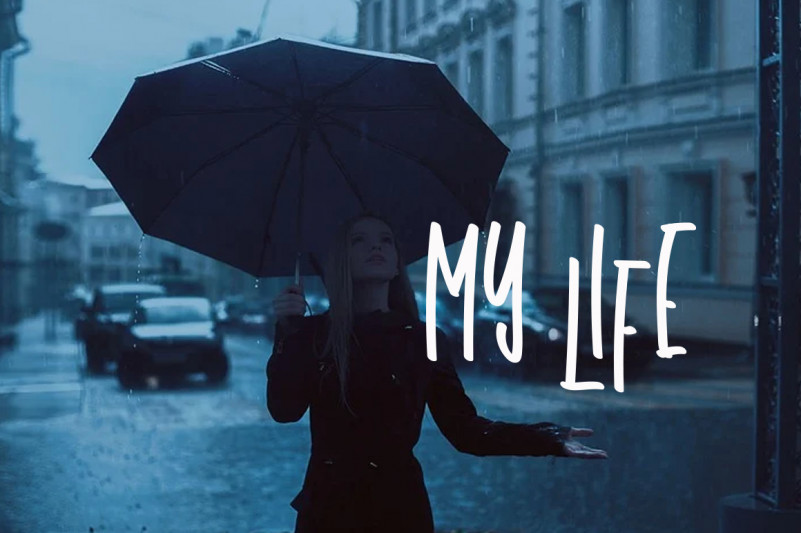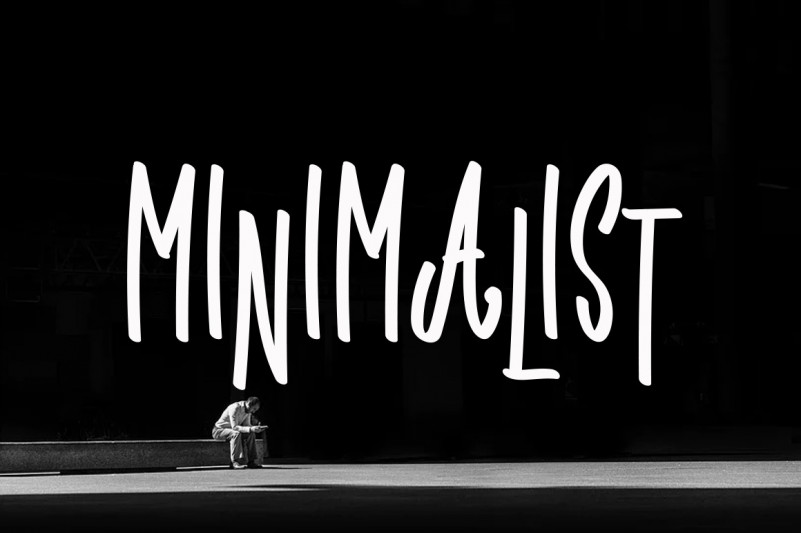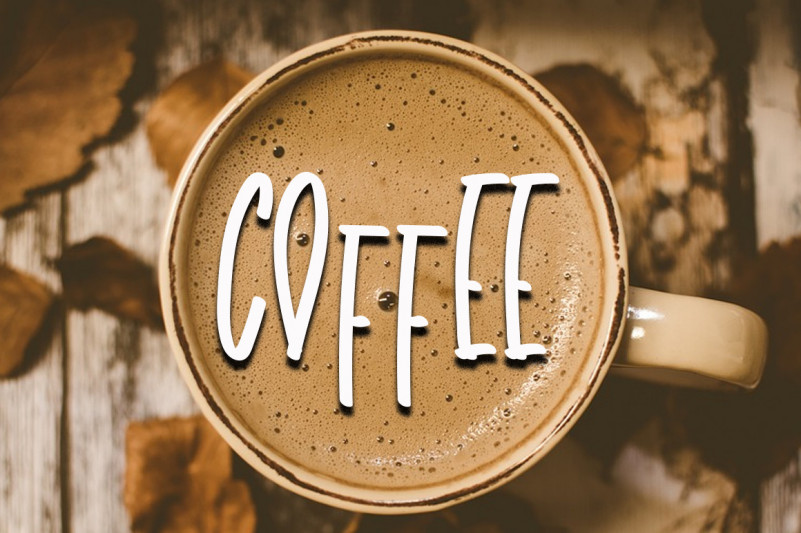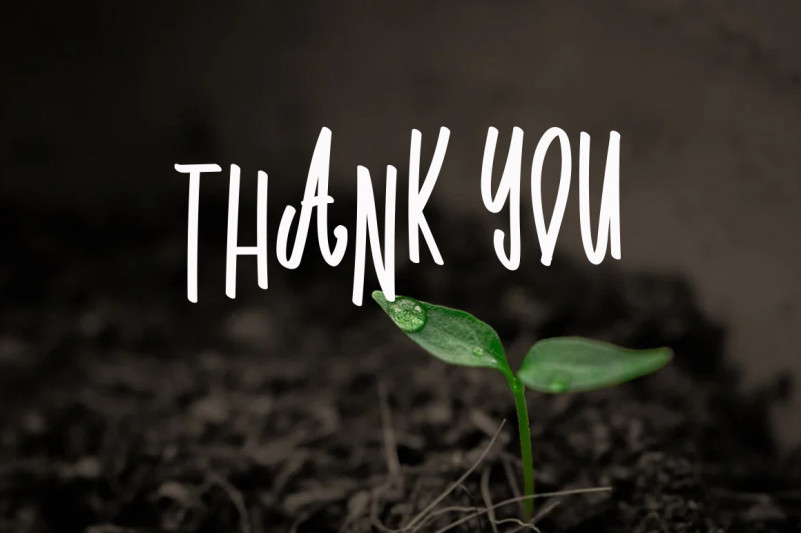
Camping Beach Brush Font
This is a unique, fun and friendly handwritten font. Whether you’re looking for a font for Instagram or a calligraphy script for a DIY project, this font will turn any creative idea into a true work of art!